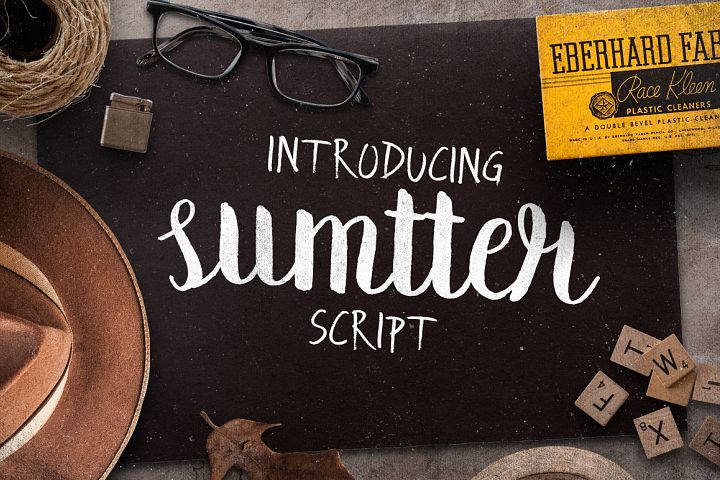
Indulge in the charm and elegance of Summter Script, a breathtaking handwritten brush font that exudes authenticity and creativity. Its thick, smooth letters dance across the page, captivating the eyes with their effortless flow and undeniable charm. Experience the magic of handwritten artistry as Summter Script transforms your digital creations into exquisite works of art.
Crafted with meticulous care by the talented Leonard Posavec, Summter Script is a true masterpiece. Its unique strokes and curves mimic the natural movements of a calligrapher's hand, adding a touch of personal flair to your designs. The graceful swirls and sweeping flourishes evoke a sense of nostalgia, lending a timeless appeal to your projects.
With Summter Script, you'll find endless possibilities for creative expression. Whether you're crafting logos, invitations, social media posts, or any other design project, this font will add a touch of sophistication and elegance. Its inherent legibility ensures that your message is conveyed clearly and effectively, while its captivating aesthetics leave a lasting impression on your audience.
Embrace the beauty of handwritten artistry and elevate your designs with Summter Script. This stunning font is the perfect choice for those seeking a touch of timeless charm and authenticity. Immerse yourself in the world of Summter Script and let your creativity flourish.